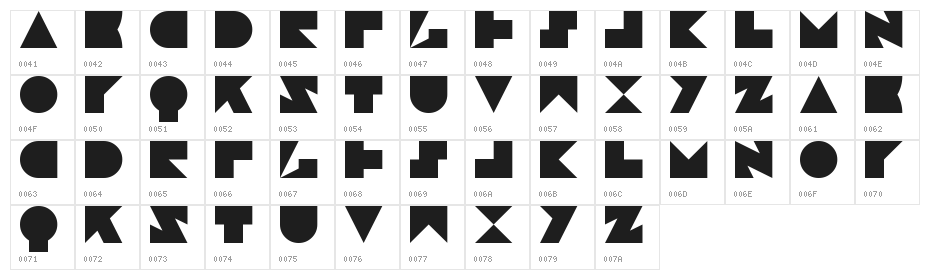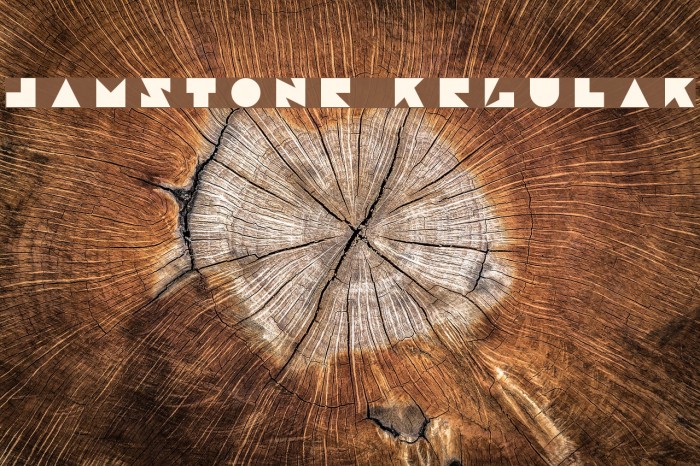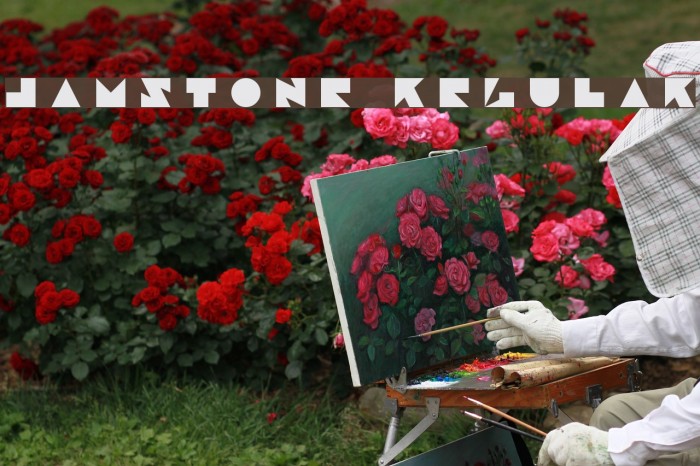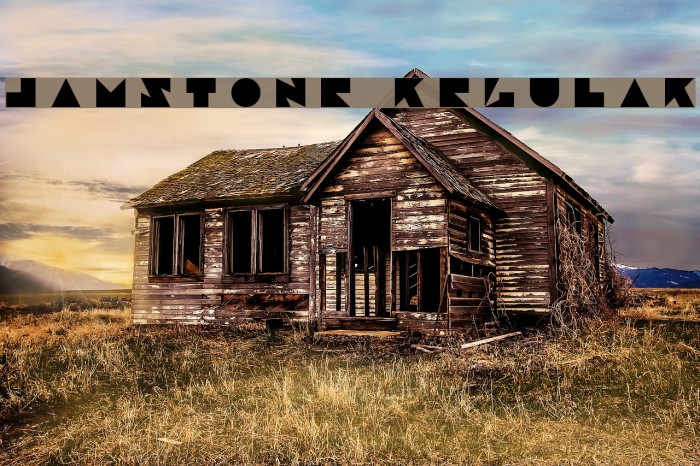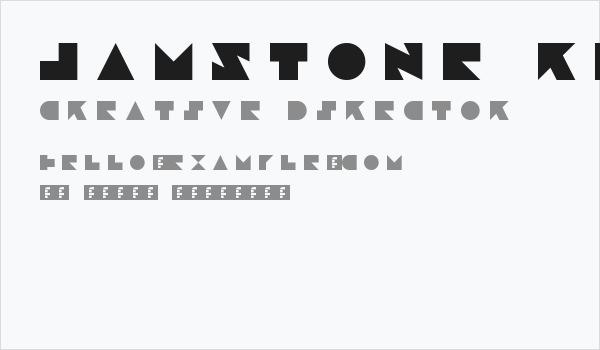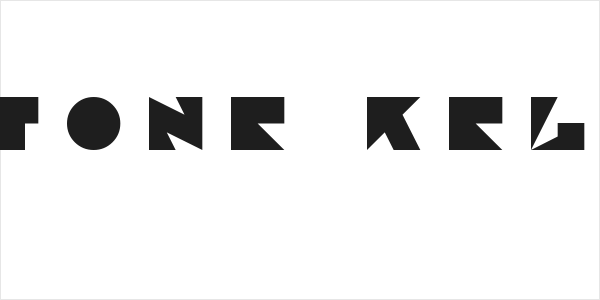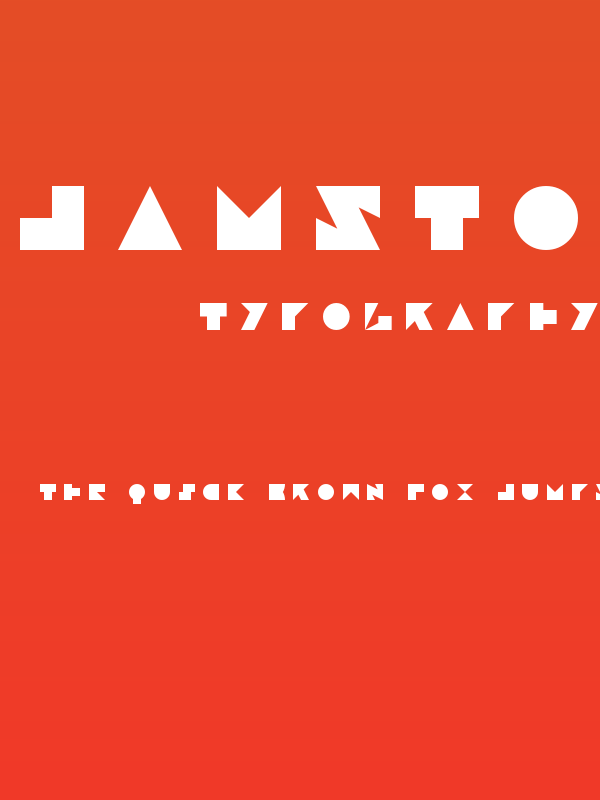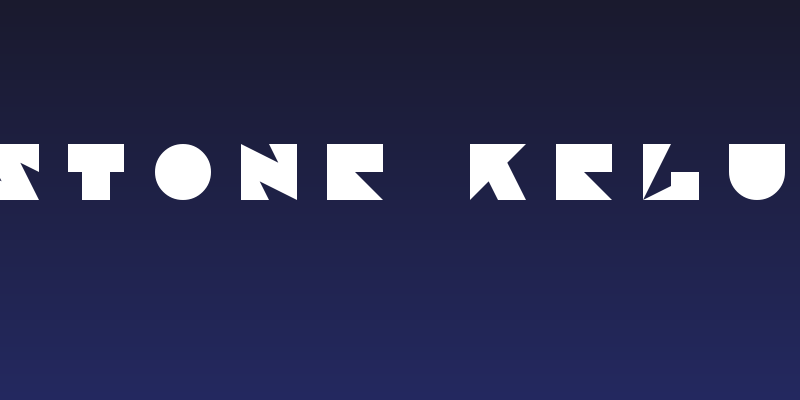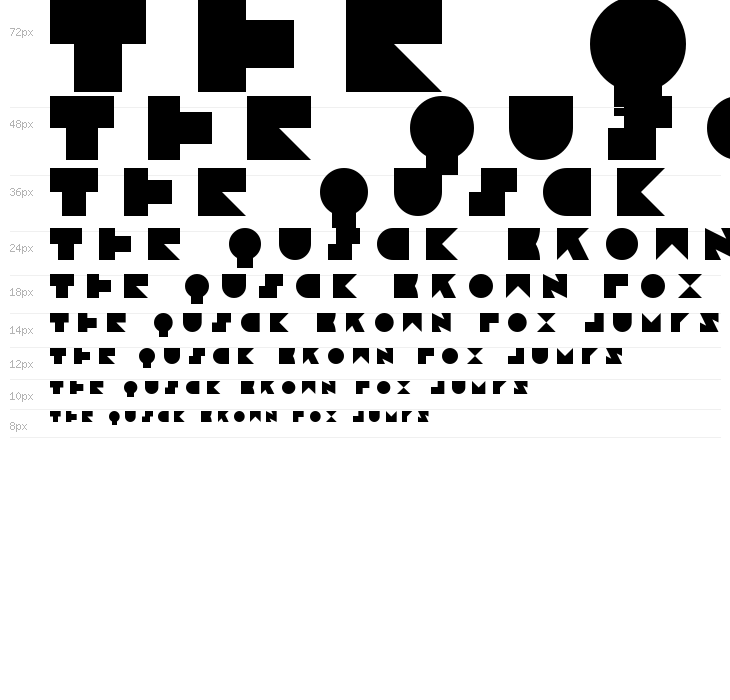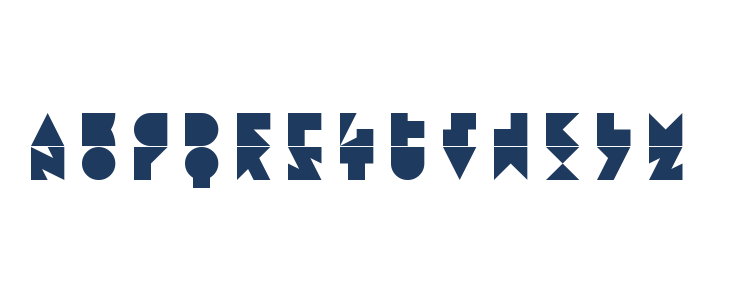
Jamstone Regular Font
Jamstone Regular Description
This font features a bold and geometric design, characterized by its sharp angles and block-like shapes. Each letterform is constructed with a series of straight lines and triangular elements, giving it a distinctly modern and abstract appearance. The uppercase and lowercase letters share a consistent style, maintaining the same angular and edgy aesthetic. The numerals and special characters are designed to match the overall theme, ensuring a cohesive look across all glyphs. The font's unique style makes it stand out, making it suitable for eye-catching designs.